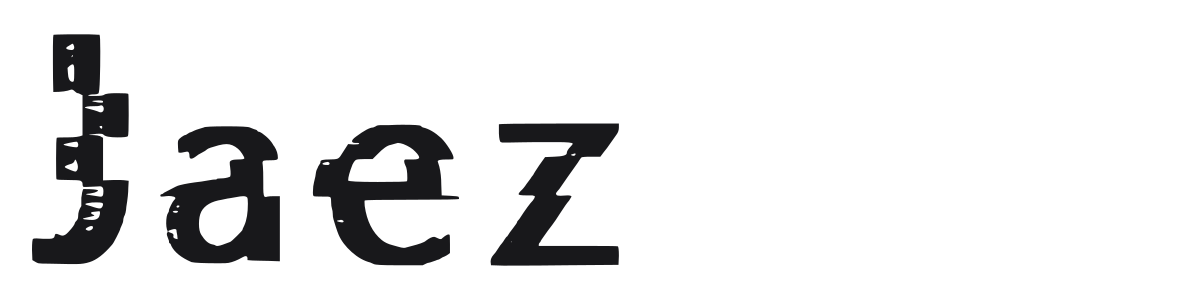
Jaez
by Jazz Lal
Jaez is a bold distressed sans-serif with heavy erosion textures that give every character a cracked, worn-print quality. Underneath the grunge is a solid chunky grotesque structure that keeps it readable even at the roughest points. Made in a graphics class and shared freely, it carries that honest DIY energy.